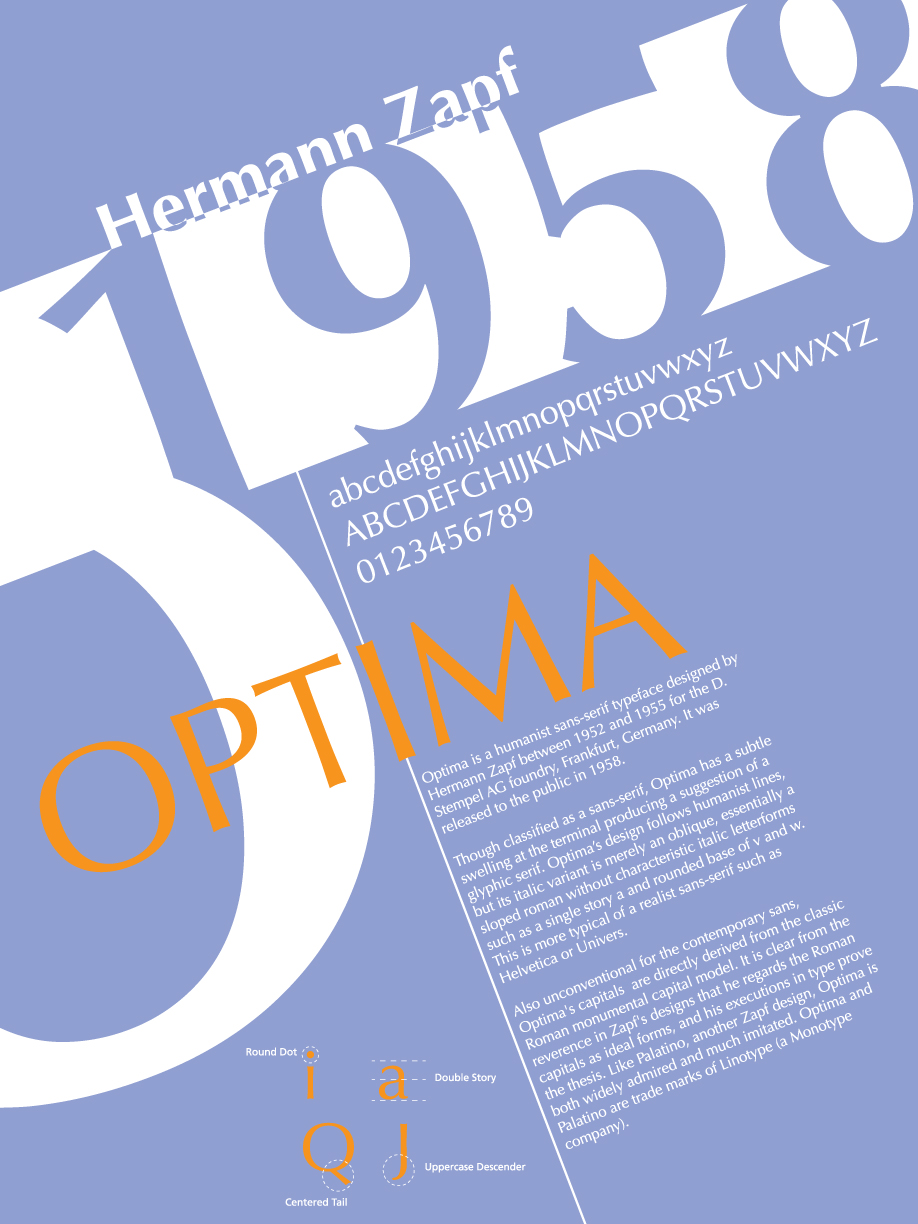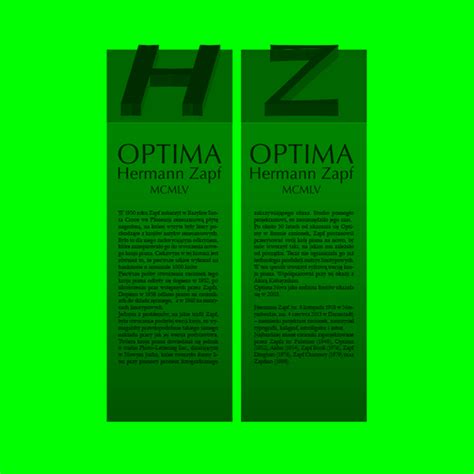
Optima Font History
Optima Font History - The metal version had alternates for (non. Italic is a sloped roman, not a true italic; Although a humanist sans serif, optima has a purely. Also available for the linotype. First presented by stempel at drupa 1958.
Also available for the linotype. First presented by stempel at drupa 1958. Although a humanist sans serif, optima has a purely. Italic is a sloped roman, not a true italic; The metal version had alternates for (non.
First presented by stempel at drupa 1958. The metal version had alternates for (non. Although a humanist sans serif, optima has a purely. Italic is a sloped roman, not a true italic; Also available for the linotype.
Also available for the linotype. The metal version had alternates for (non. Although a humanist sans serif, optima has a purely. First presented by stempel at drupa 1958. Italic is a sloped roman, not a true italic;
Also available for the linotype. Italic is a sloped roman, not a true italic; The metal version had alternates for (non. First presented by stempel at drupa 1958. Although a humanist sans serif, optima has a purely.
Although a humanist sans serif, optima has a purely. Italic is a sloped roman, not a true italic; The metal version had alternates for (non. Also available for the linotype. First presented by stempel at drupa 1958.
First presented by stempel at drupa 1958. Also available for the linotype. Italic is a sloped roman, not a true italic; Although a humanist sans serif, optima has a purely. The metal version had alternates for (non.
Also available for the linotype. Italic is a sloped roman, not a true italic; Although a humanist sans serif, optima has a purely. The metal version had alternates for (non. First presented by stempel at drupa 1958.
Although a humanist sans serif, optima has a purely. First presented by stempel at drupa 1958. Italic is a sloped roman, not a true italic; The metal version had alternates for (non. Also available for the linotype.
The metal version had alternates for (non. Although a humanist sans serif, optima has a purely. Also available for the linotype. Italic is a sloped roman, not a true italic; First presented by stempel at drupa 1958.
First presented by stempel at drupa 1958. Also available for the linotype. Although a humanist sans serif, optima has a purely. Italic is a sloped roman, not a true italic; The metal version had alternates for (non.
Also available for the linotype. Italic is a sloped roman, not a true italic; The metal version had alternates for (non. Although a humanist sans serif, optima has a purely. First presented by stempel at drupa 1958.
Italic Is A Sloped Roman, Not A True Italic;
First presented by stempel at drupa 1958. The metal version had alternates for (non. Also available for the linotype. Although a humanist sans serif, optima has a purely.